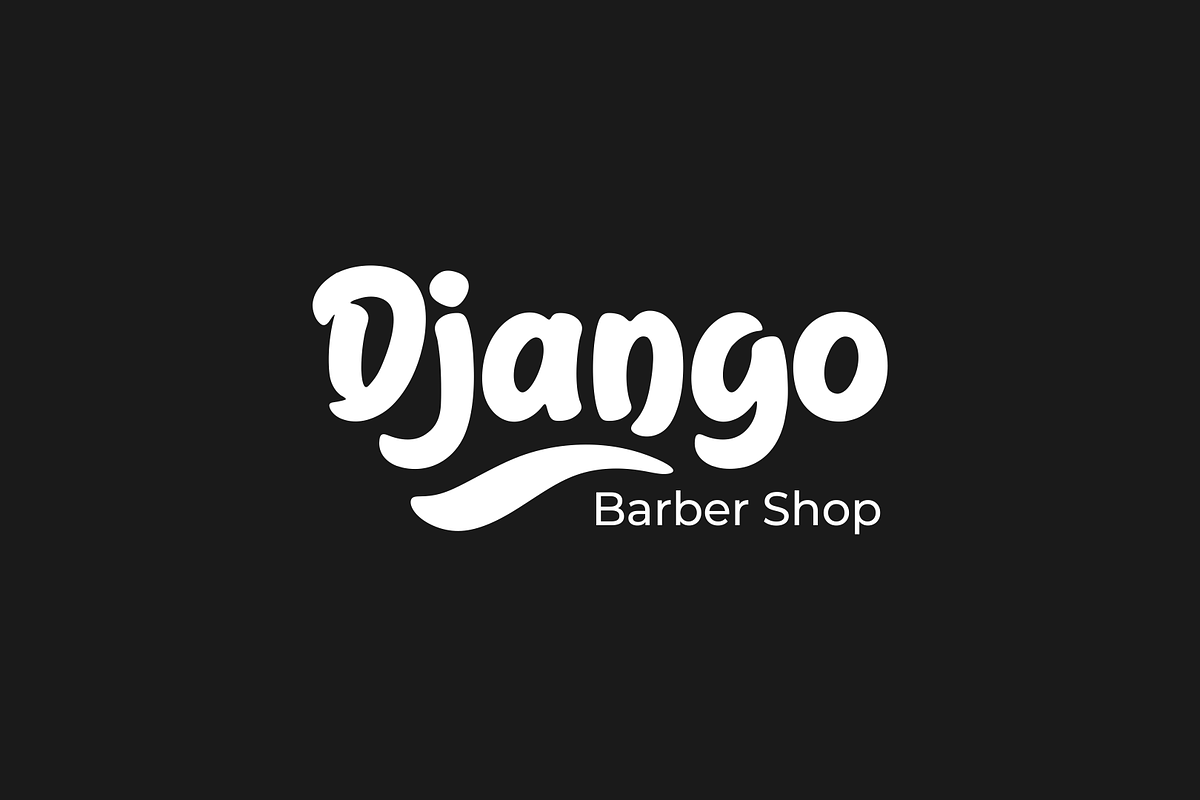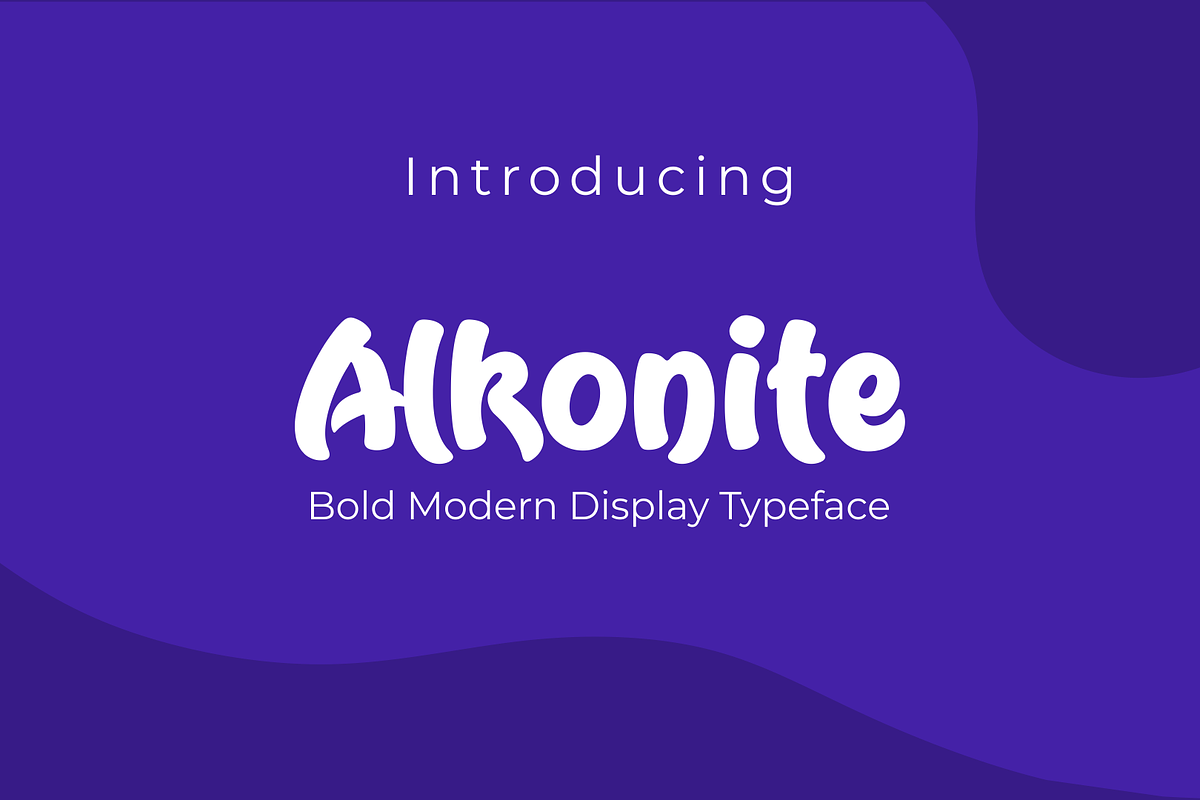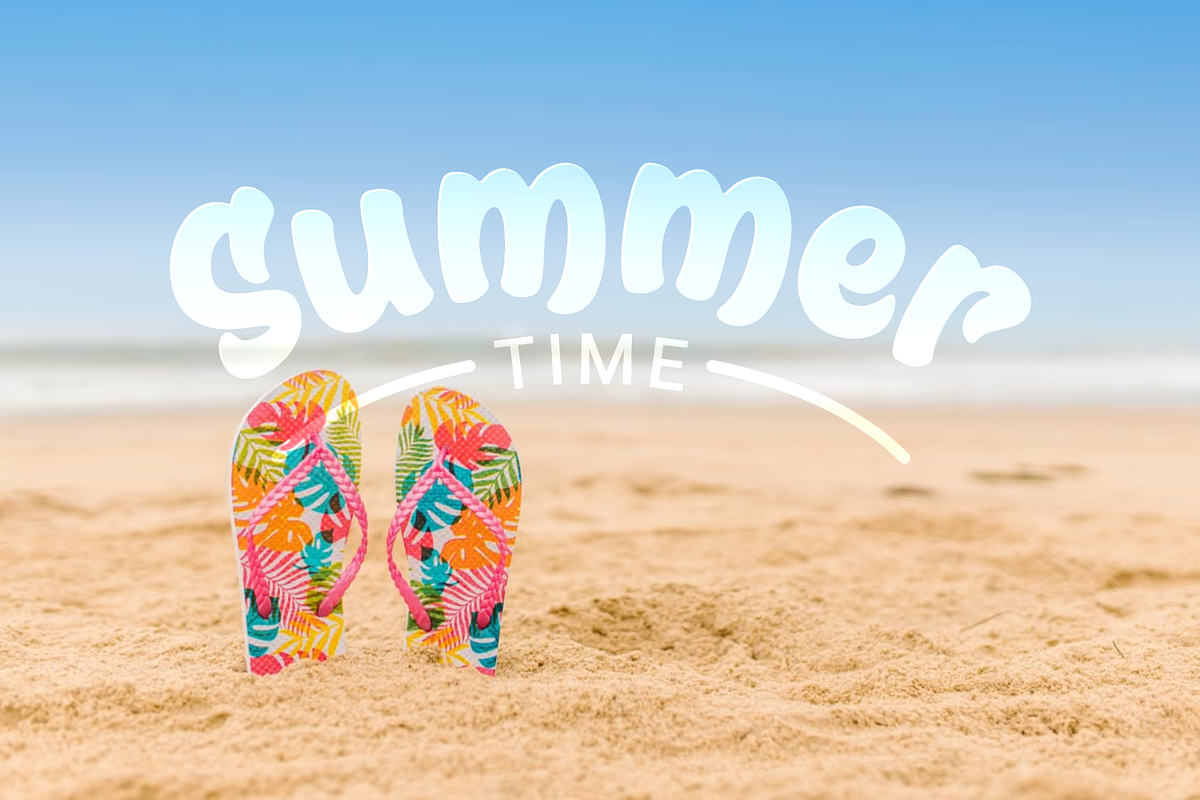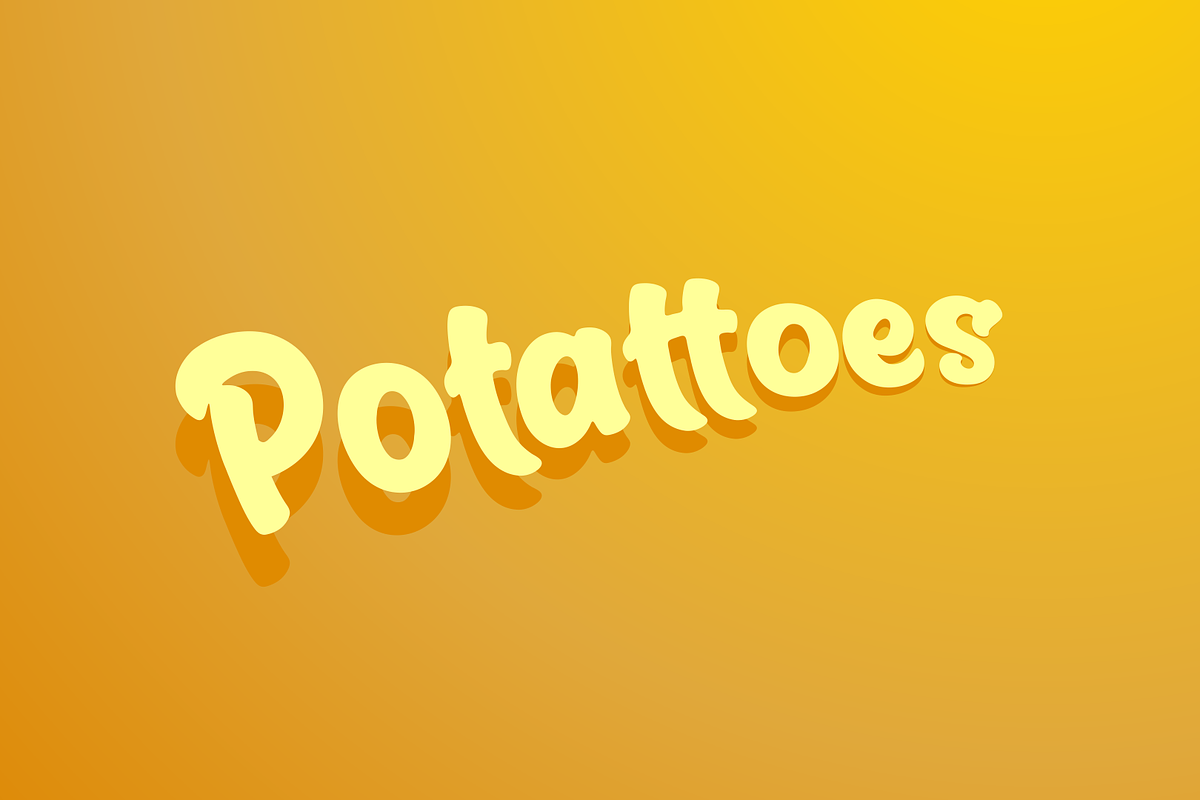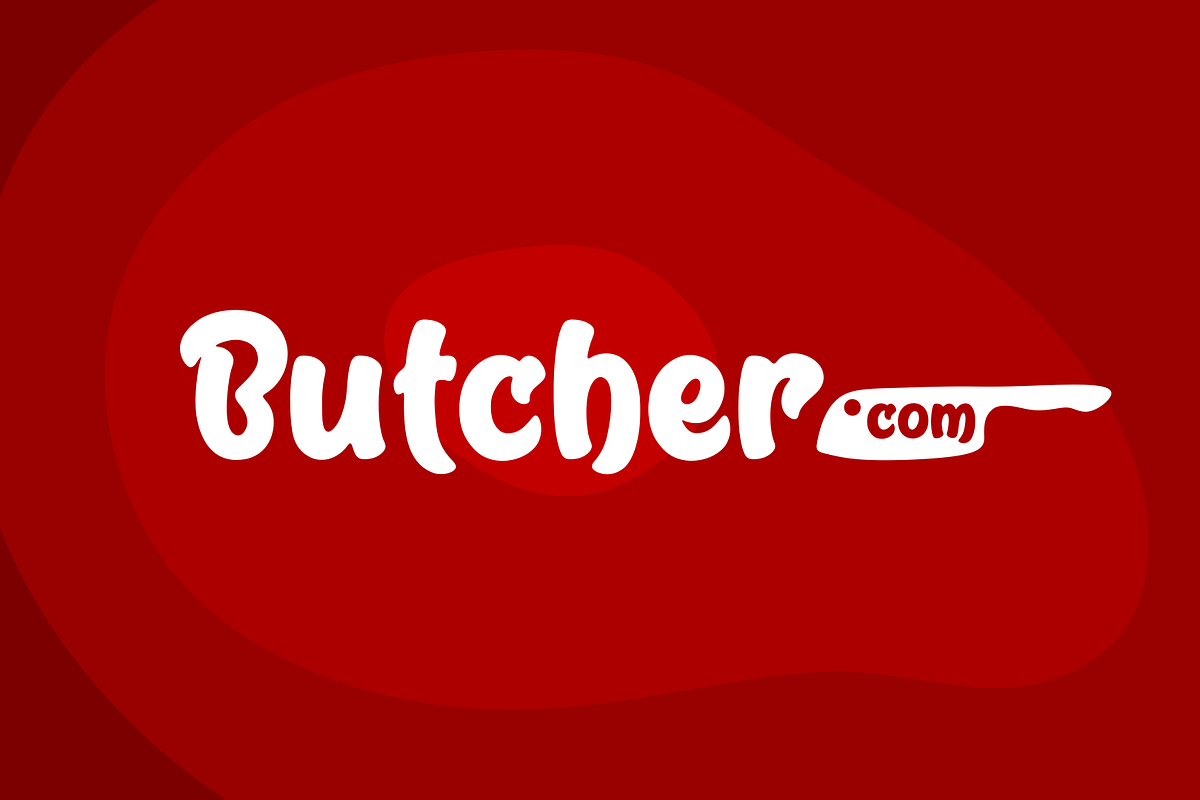
Alkonite
Alkonite captures modern sophistication and futuristic grace with its bold and contemporary persona. It is designed with geometric exactness, accomplishing a magnetic presence that resonates with power and precision. The discerning balance of subtle curves and sharp edges makes Alkonite adaptable for all designs – be it digital or print. Exhibiting strength, innovation and eloquent clarity, Alkonite shines as the perfect choice for hero headers, branding visuals, and innovative project designs. From logos to posters and striking motion graphics, it emerges as a captivating statement font that demands attention and leaves enduring impressions. Each alphabet in Alkonite is crafted with meticulous precision, exuding immense strength. Its finesse lies in the harmony between its smooth sweeps and crisp corners that establish a dynamic flow, negotiating power with elegance.